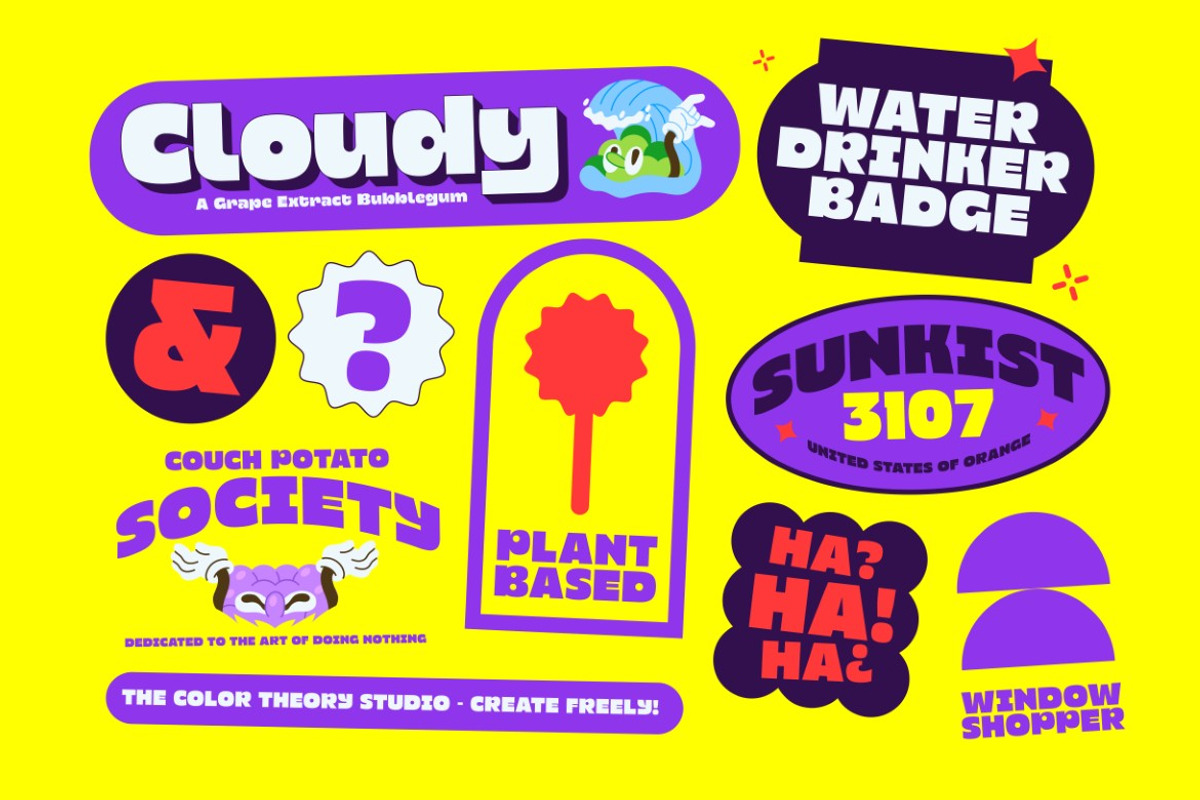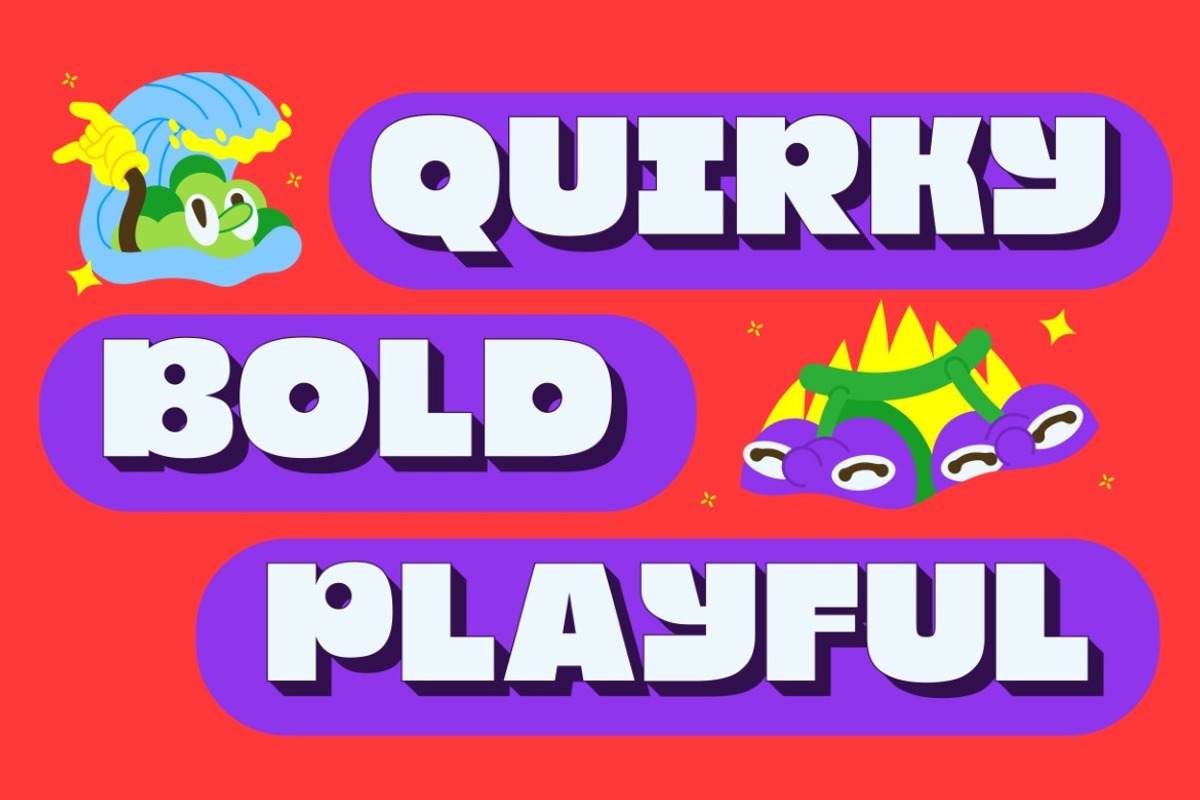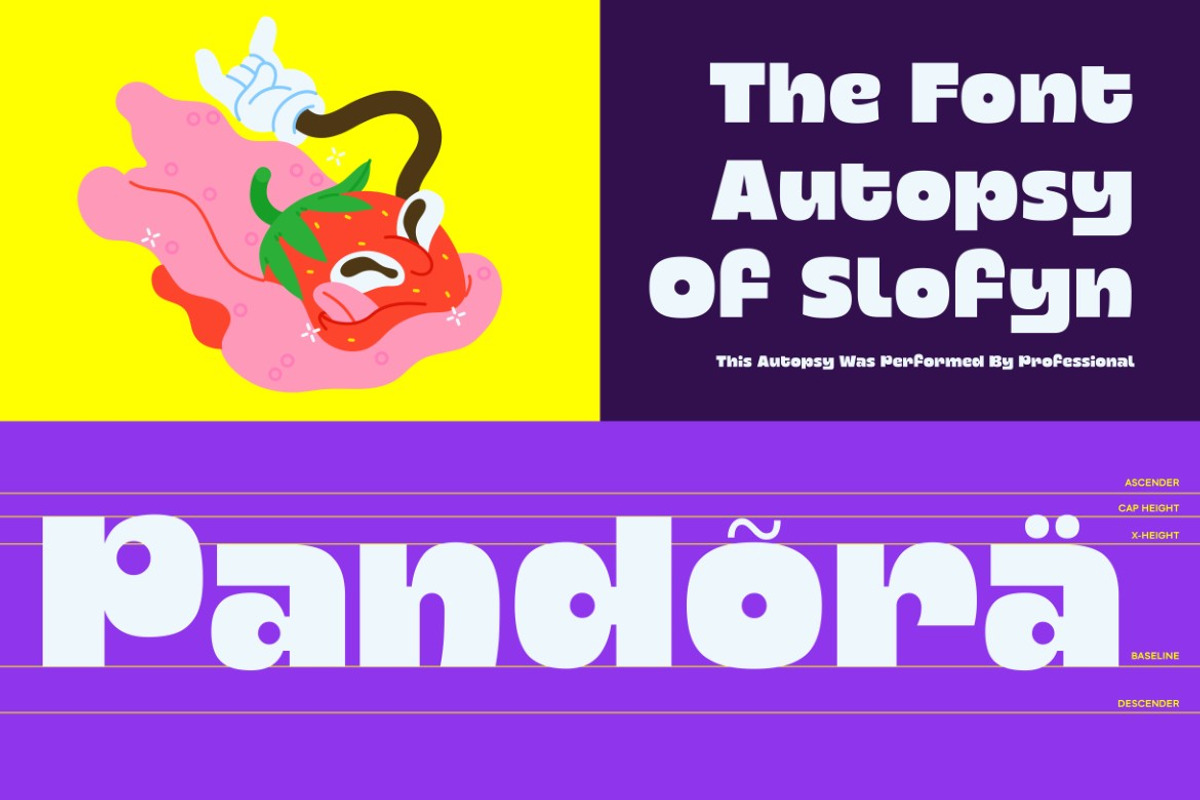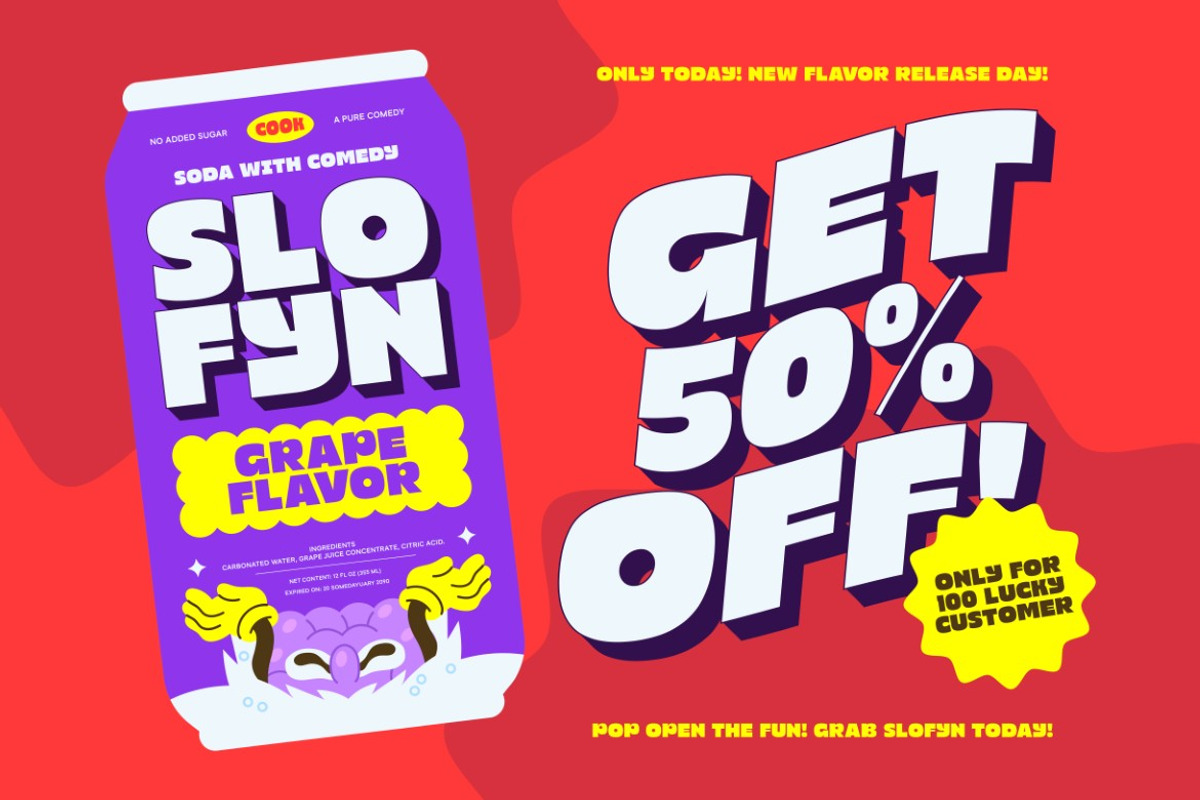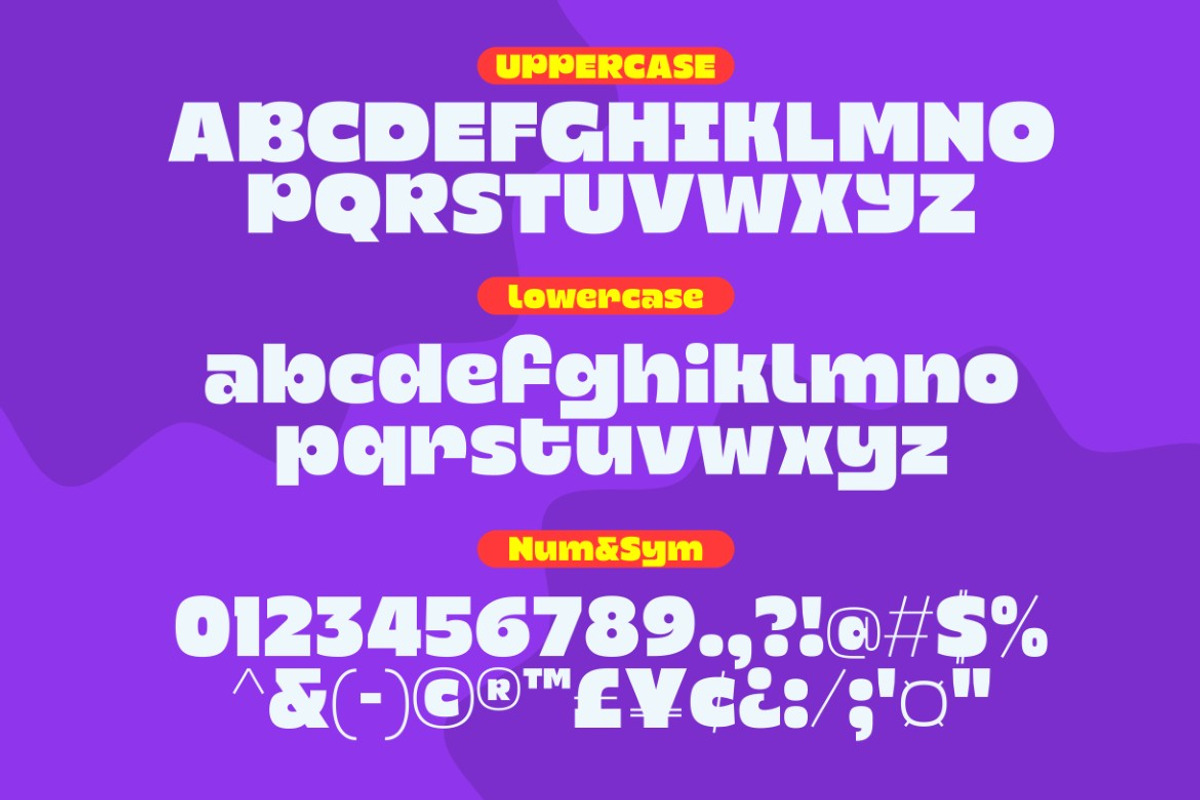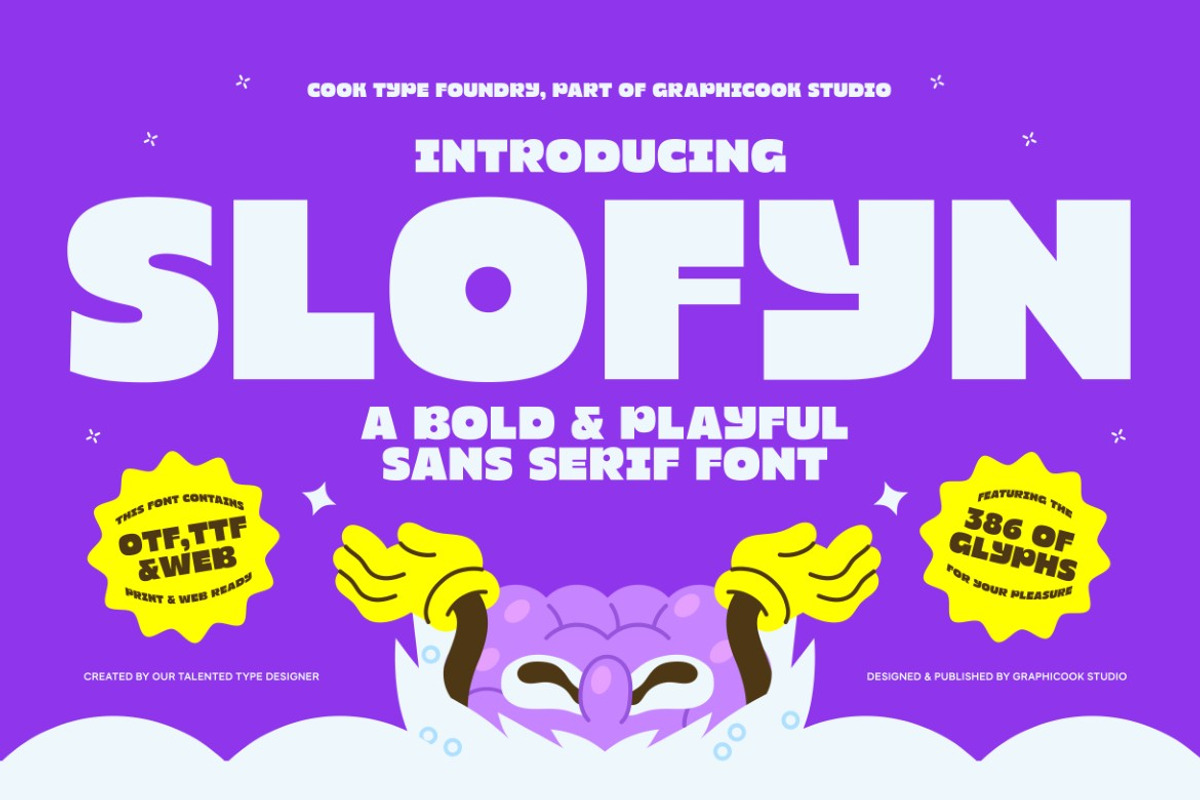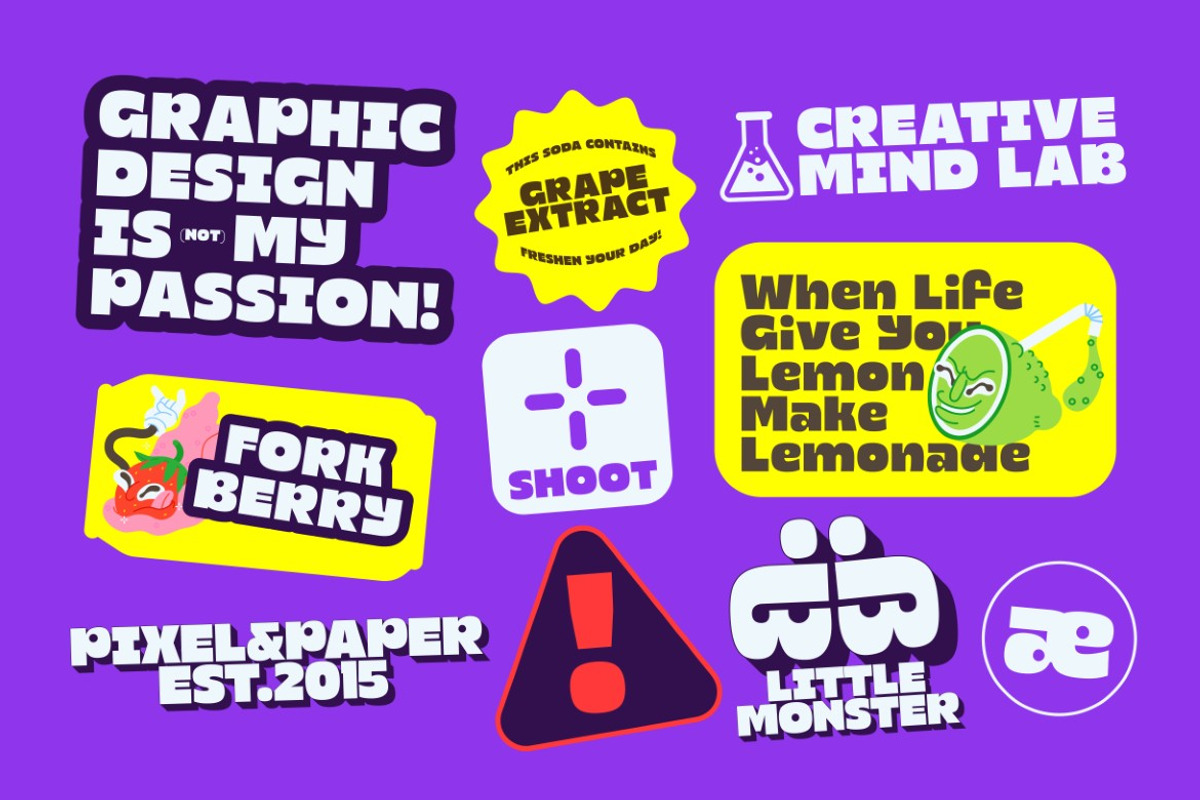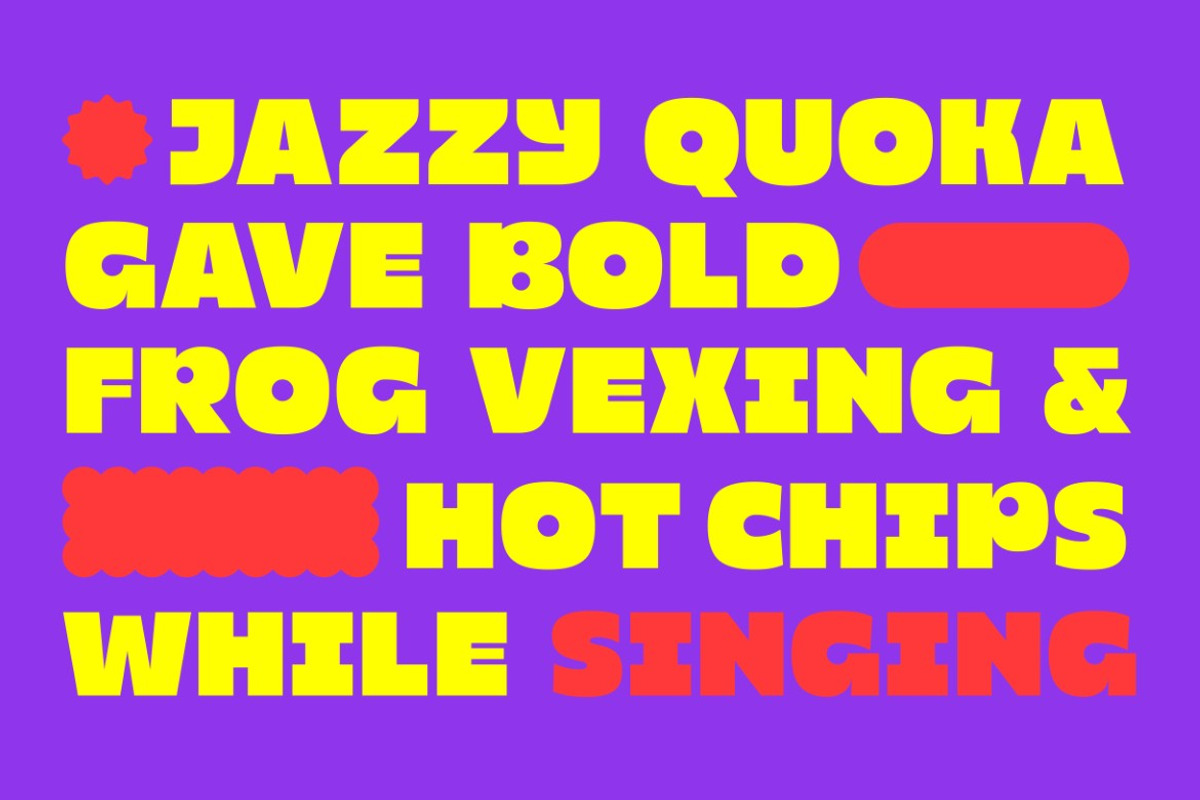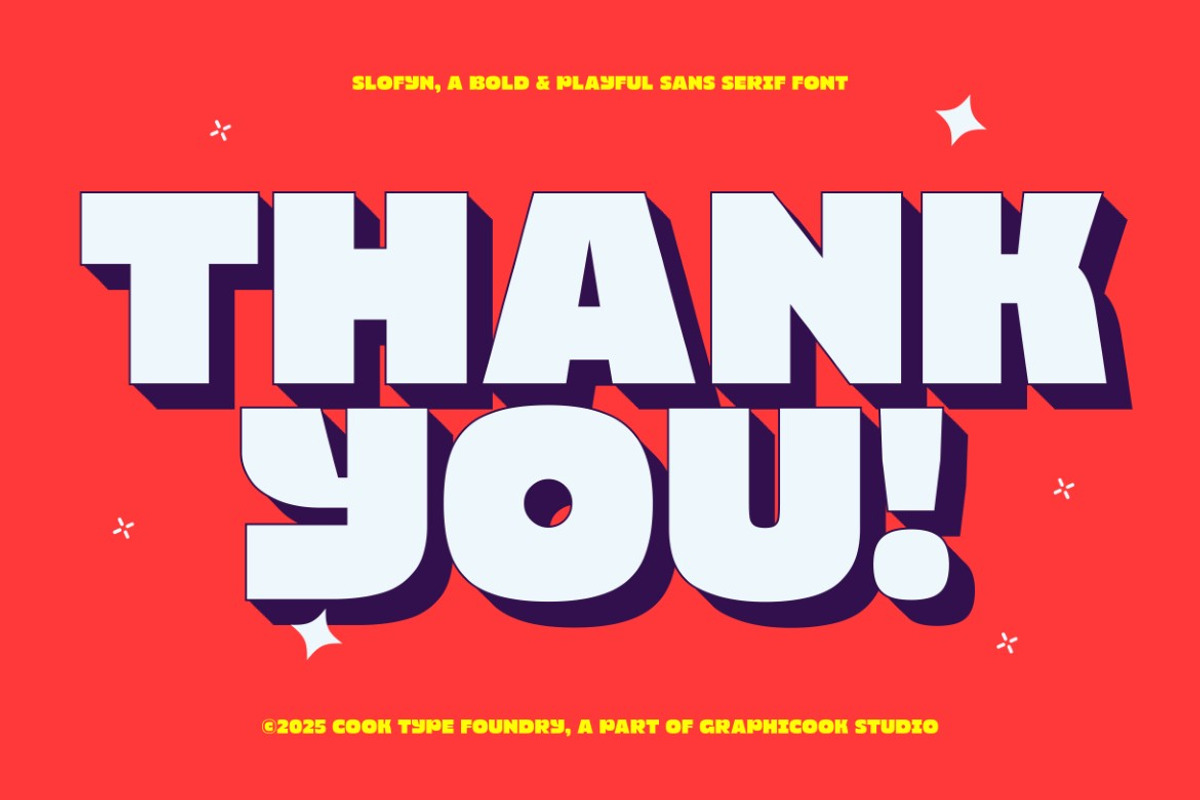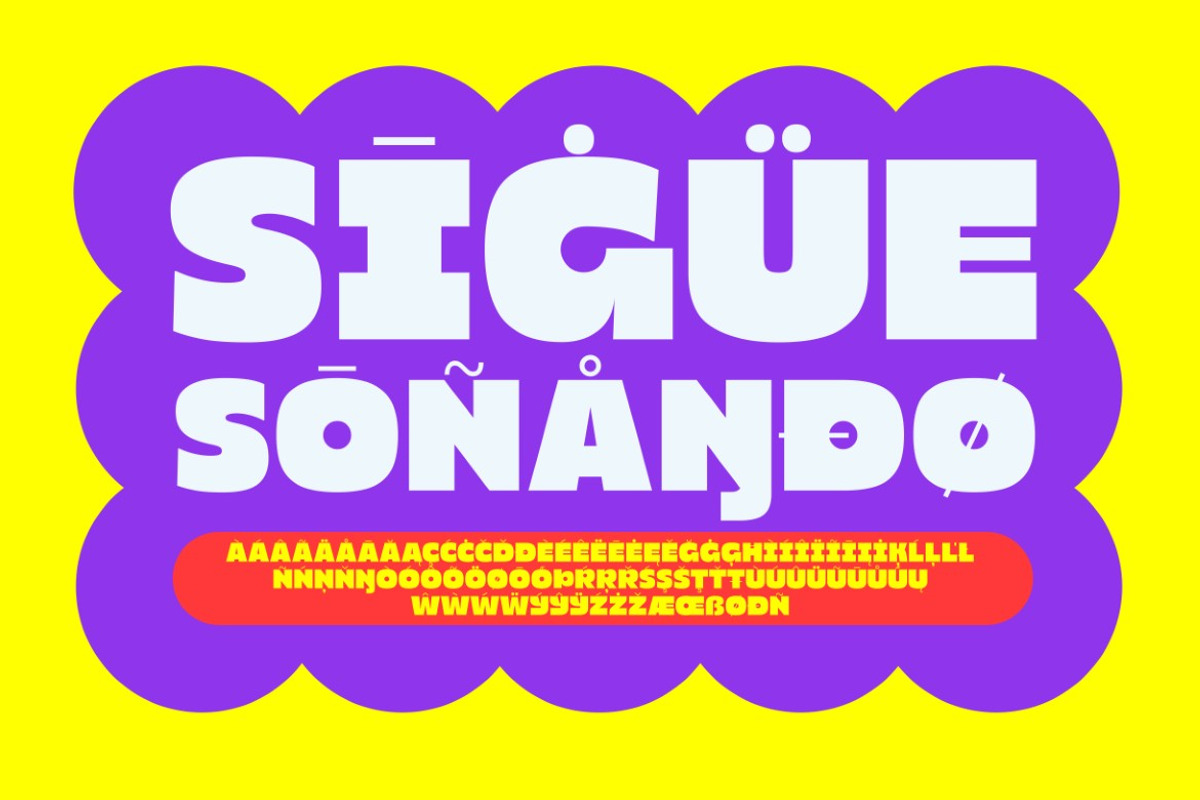
Slofyn
Slofyn is a bold, lively sans serif font with unique letterforms and a playful spirit, great for standout headlines, branding, and creative design projects.
It is perfect for headlines, logotypes, magazines, packaging, quotes, movies, games, cover albums, book covers, and flyers, it's a perfect solution for creating eye-catching designs that stand out in any context.